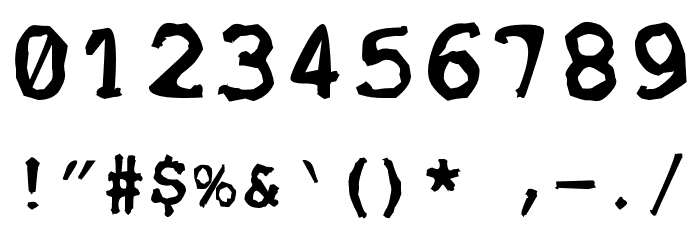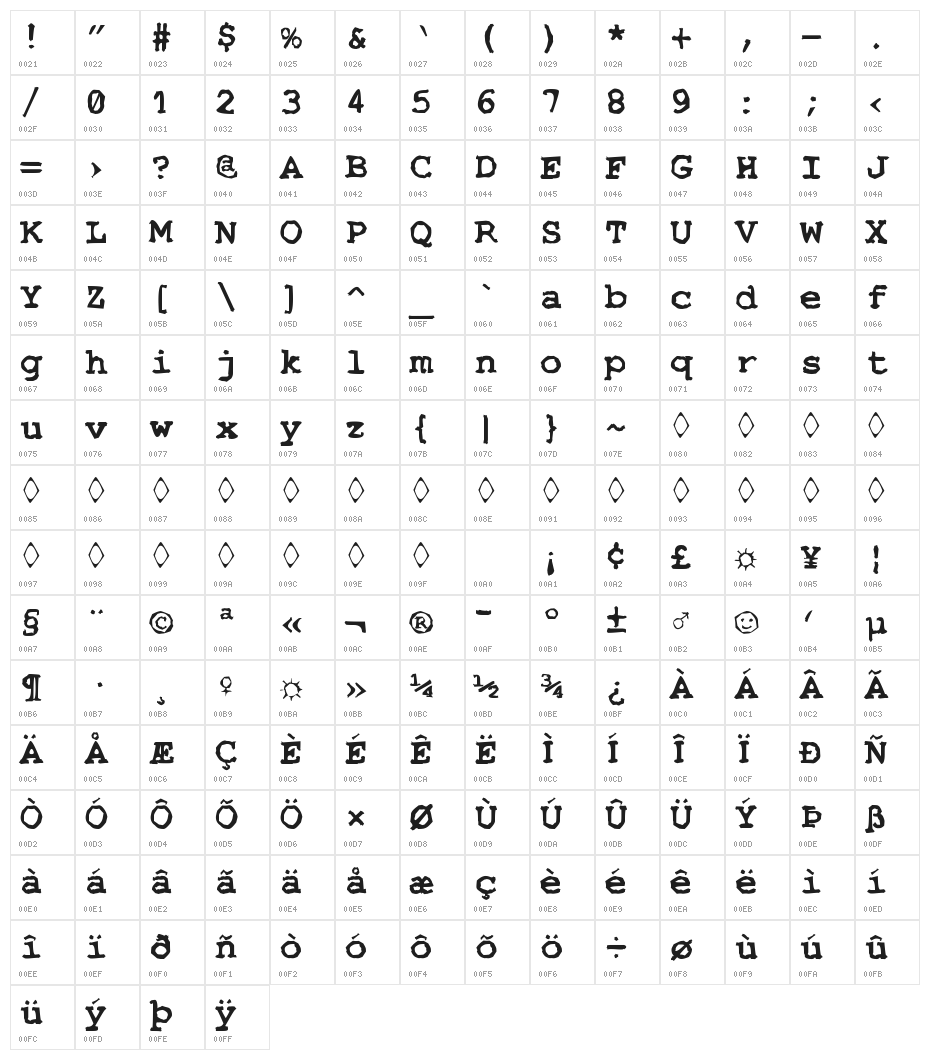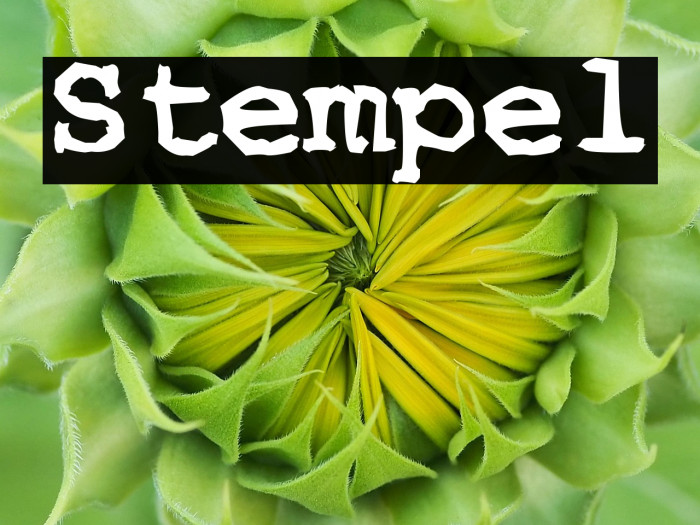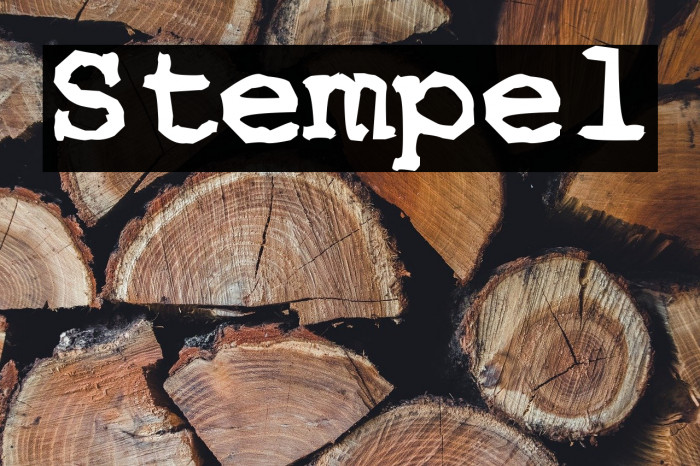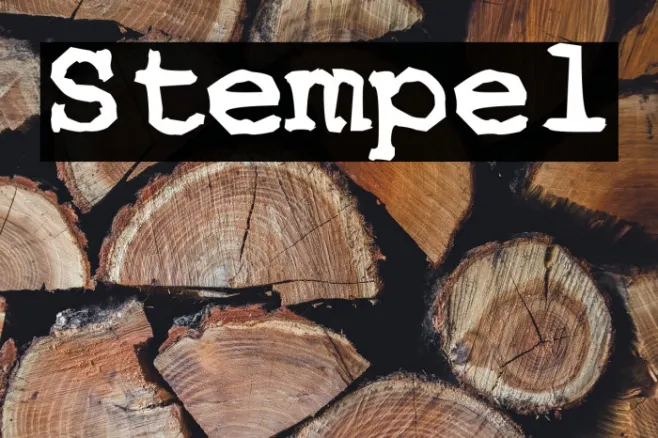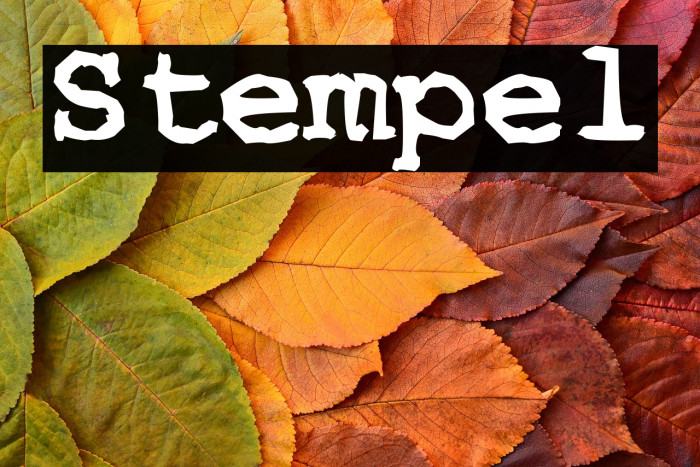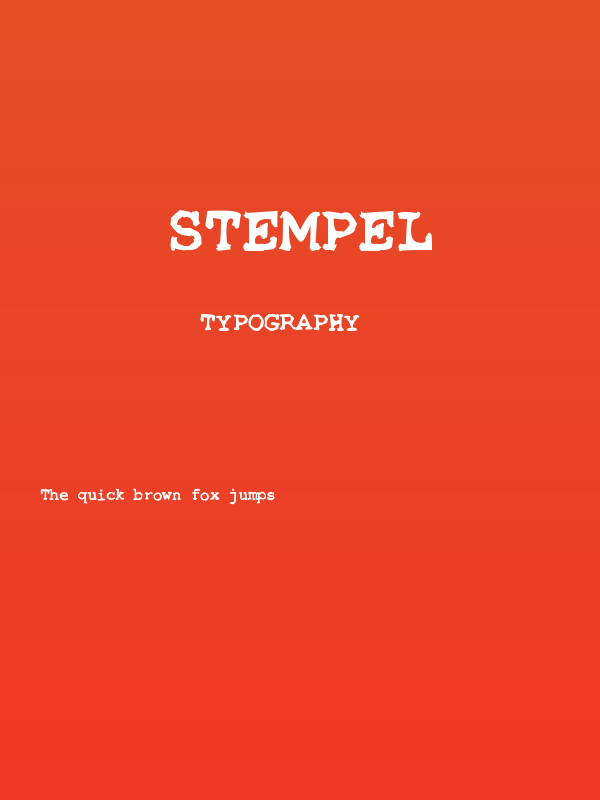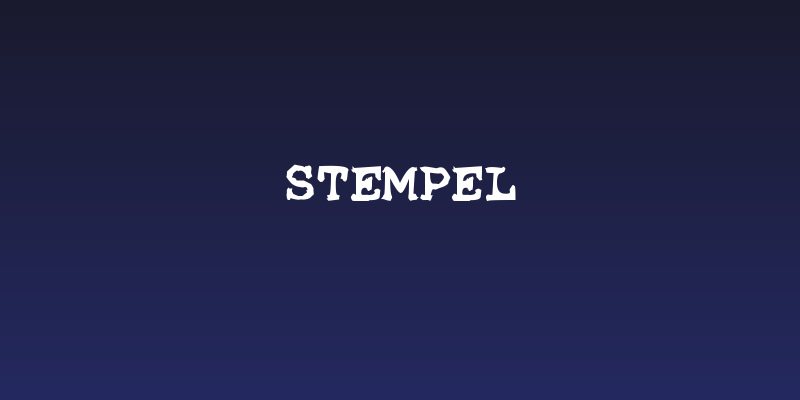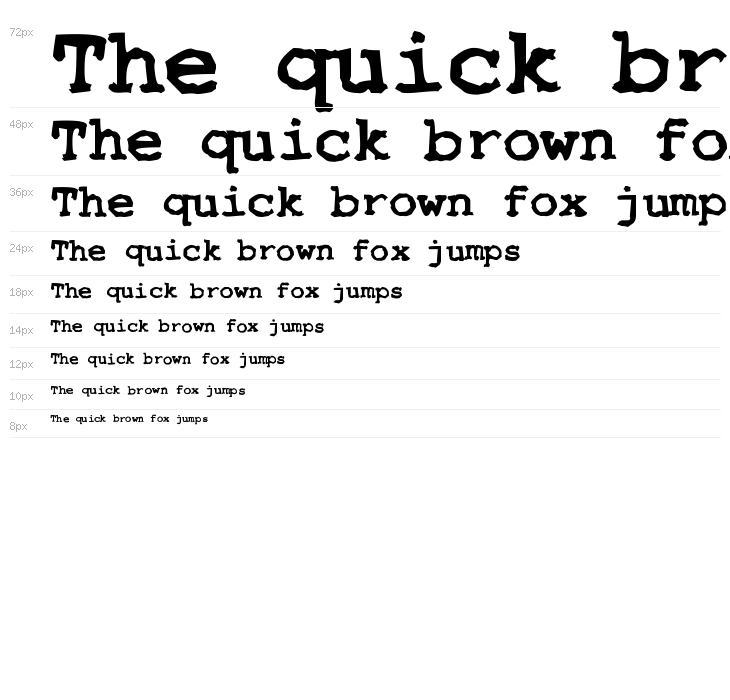
Stempel Font
Stempel Description
This font features a bold and rugged appearance, reminiscent of vintage typewriter styles with a modern twist. The characters are slightly irregular, giving it a handcrafted feel. The uppercase letters are strong and prominent, while the lowercase letters maintain a consistent style with a touch of whimsy. Numbers and special characters follow the same bold and slightly distressed aesthetic, making them stand out. The overall look is both classic and unique, suitable for projects that require a distinctive and eye-catching typeface.
| Proposed Projects | Ideal for branding, posters, and packaging designs that require a vintage or handcrafted look. |